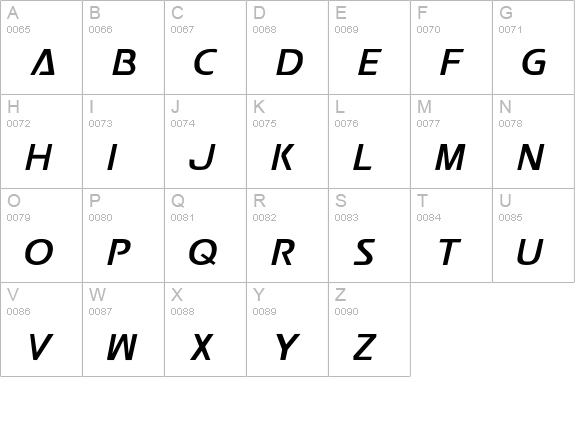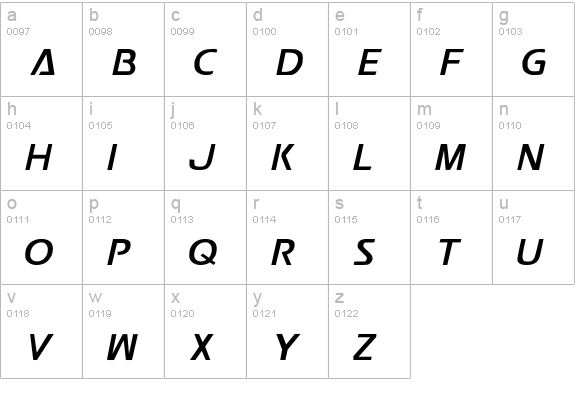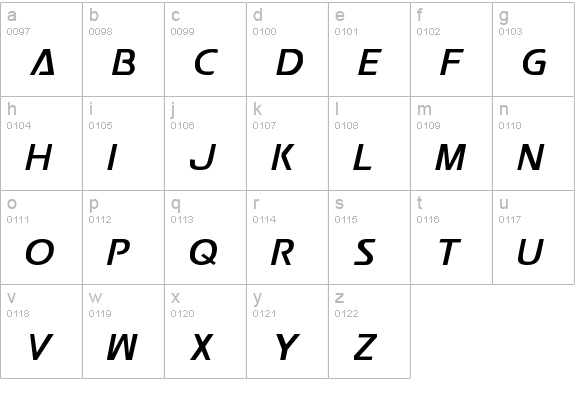
Postmaster Font Details
Postmaster font is a versatile and stylish typeface that is perfect for creating eye-catching designs. With its clean lines and classic look, Postmaster is suitable for a wide range of projects, from branding to editorial design. This font features a timeless elegance that will add a touch of sophistication to any design. What sets Postmaster font apart is that it is available for free download at FontsMarket.com. This means you can easily access this high-quality font without any cost, making it a valuable addition to your font collection. Whether you are a graphic designer, a web developer, or a marketing professional, Postmaster font is a great choice for your next project. Download Postmaster font today and elevate your designs with its professional and polished appearance. Don't miss out on this fantastic opportunity to enhance your creative work with a top-notch font that is both stylish and free to use.